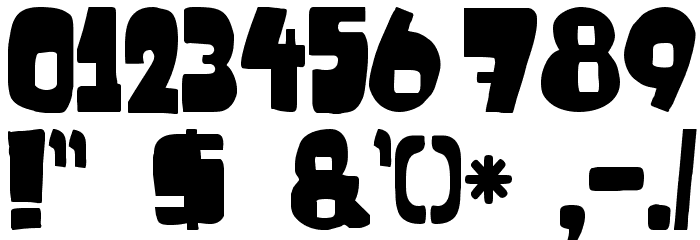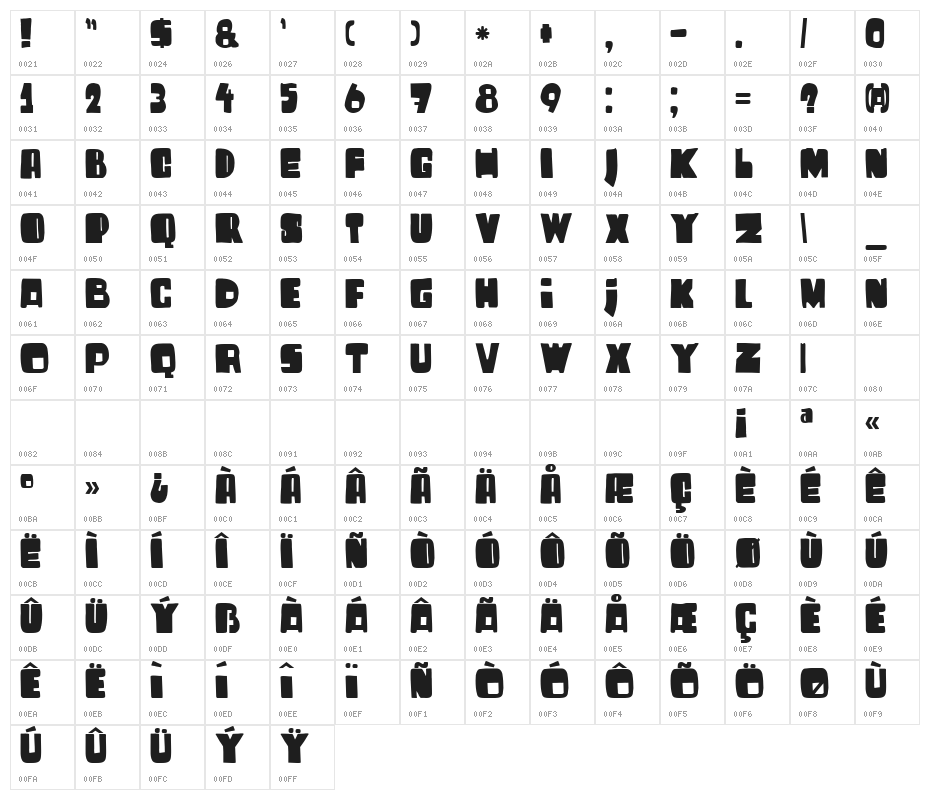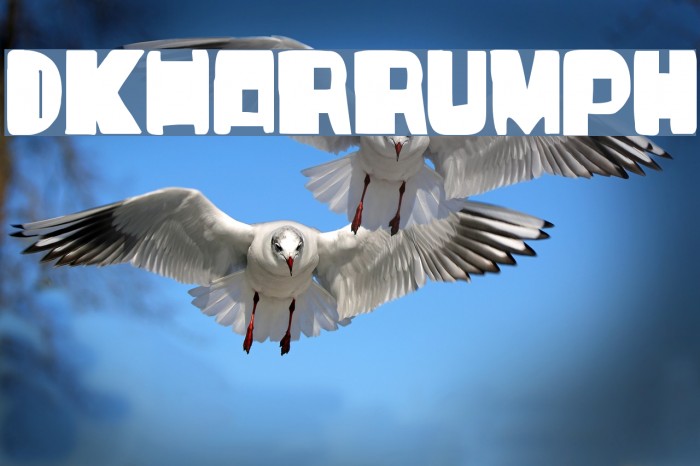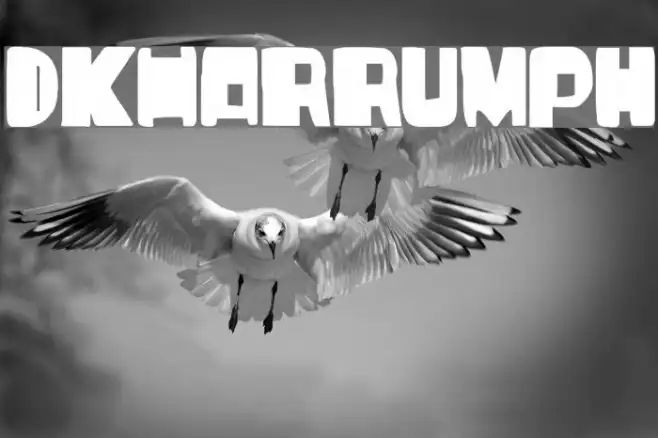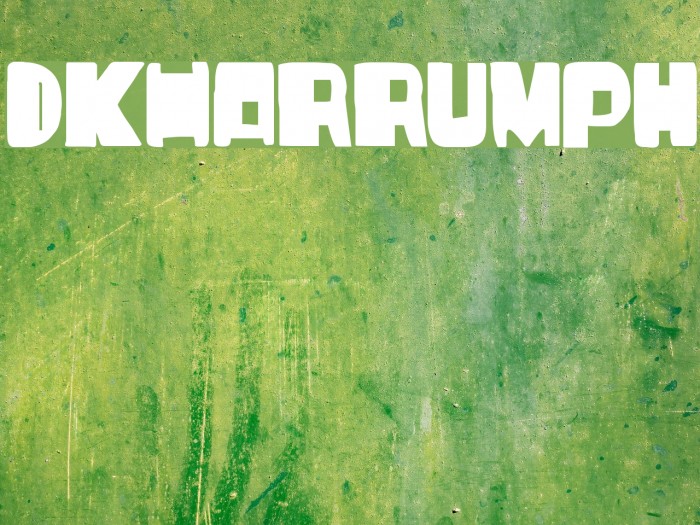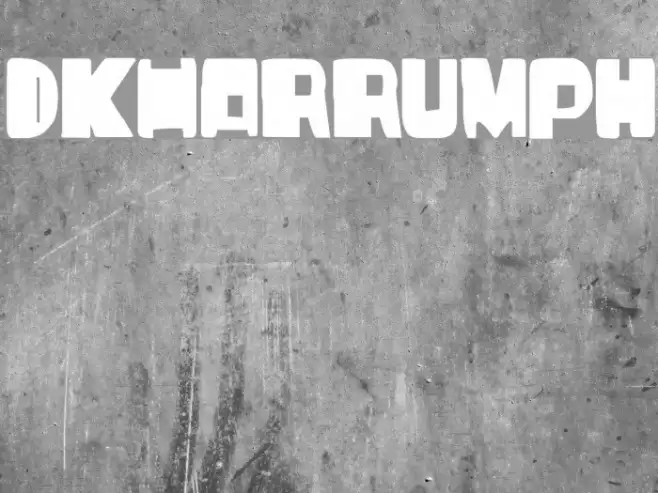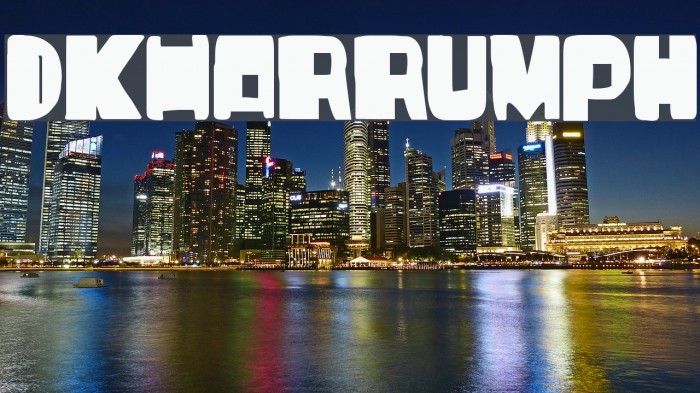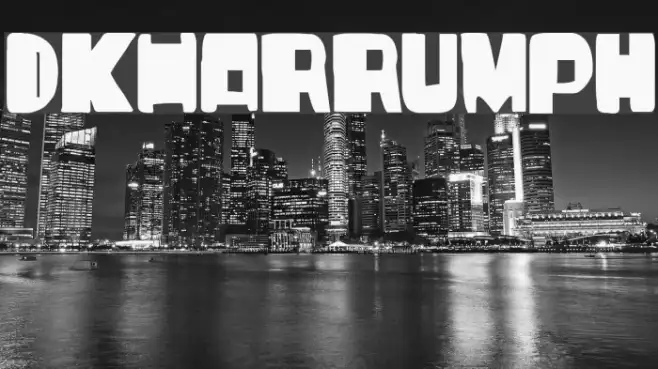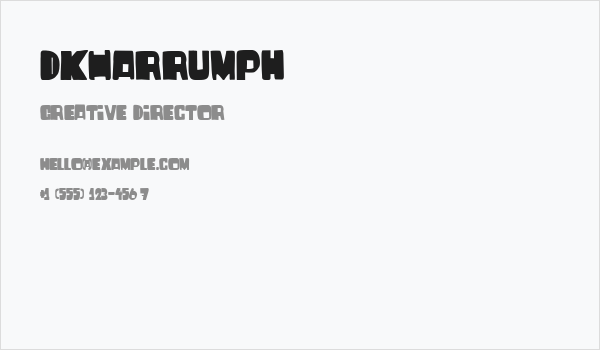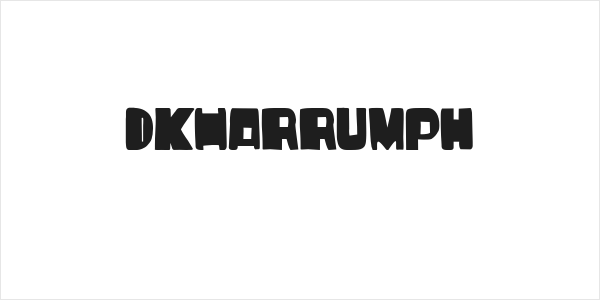
DKHarrumph Font
DKHarrumph Description
This font features a bold and playful design with thick, blocky characters that have a unique, quirky appearance. The letters are heavily stylized with uneven edges and exaggerated forms, giving them a cartoonish and whimsical feel. The uppercase and lowercase letters maintain a consistent weight, while the numbers and special characters follow the same bold and expressive style. The font's distinctiveness makes it stand out, making it suitable for creative and fun projects. Its heavy weight and wide character forms suggest a strong presence, ideal for grabbing attention.
| Overall Style | Playful, Whimsical, Cartoonish |
| Proposed Projects | Ideal for children's books, comic strips, playful branding, and eye-catching posters. |